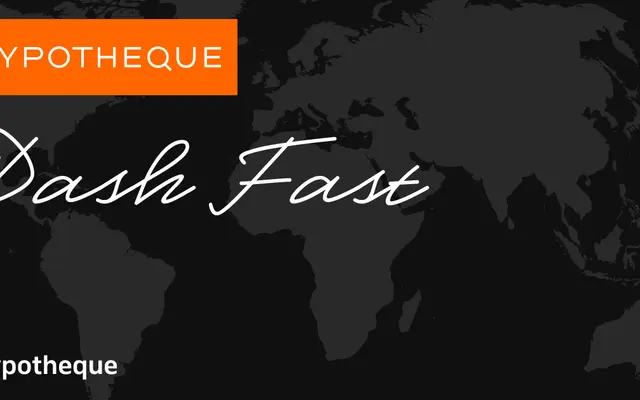
Dash Fast specimen from Typotheque
A wide-ranging sans-serif system from Typotheque offering four stylistic sub-families across six weights and three widths, including a variable font edition.
The Dash system comprises four sub-families — Fast, Slow, Casual and Fastest — each sharing a common weight and width structure that runs from Hairline to Bold across Standard, Semiwide and Wide proportions. Individual styles are named after cities, giving the family an idiosyncratic organisational logic. The Dash Casual Variable edition consolidates the range into a single file, making the system practical for screen and editorial environments where width and weight need to flex.
Dash Fast is a humanist sans-serif with multiple width variants and a casual companion, suggesting optically driven stroke contrast and warmth rather than a purely geometric or grotesque approach.